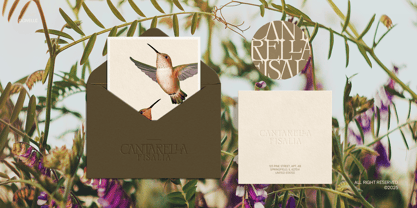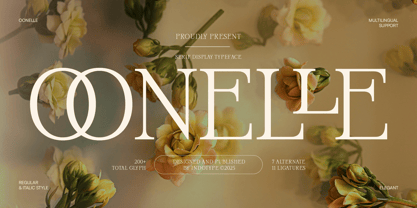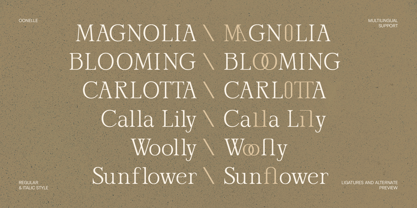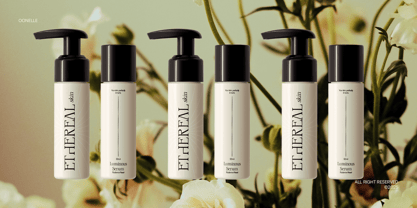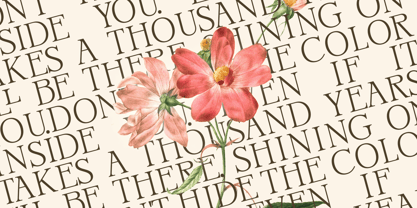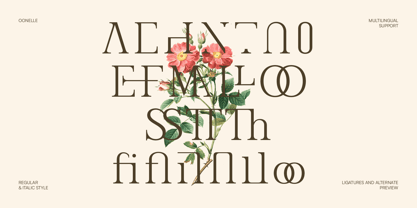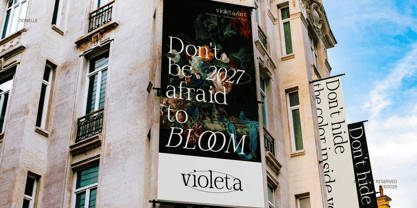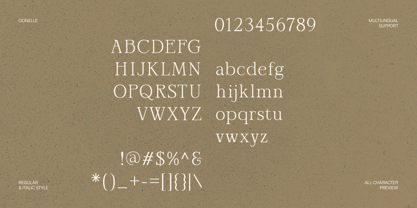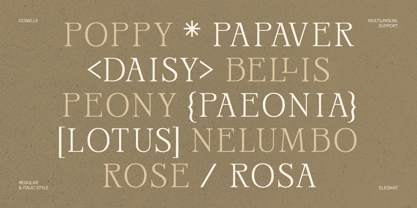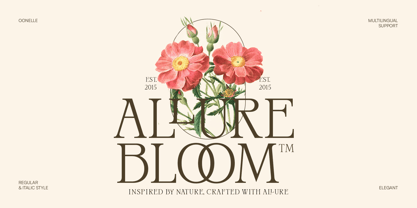
IT Oonelle
by Indotype
The IT Oonelle Font Family was designed by Dede Kurniawan and published by Indotype. IT Oonelle contains 2 styles and family package options. More about this family
Oonelle is an elegant serif display typeface crafted for refined visual storytelling. Its timeless letterforms balance graceful curves and crisp structure, exuding a sense of sophistication that feels both modern and classic. Designed with 7 alternates and 11 ligatures, Oonelle offers expressive versatility, allowing each word to flow beautifully across layouts. Featuring regular and italic styles with 200+ glyphs and full multilingual support, Oonelle is perfect for editorial design, branding, invitations, and luxury packaging. The overlapping “O” detail in its logo presentation captures its essence — unity, elegance, and artistic poise. Published by Indotype in 2025, Oonelle transforms typography into a refined visual statement — ideal for those seeking a high-fashion, magazine-style, and timeless serif aesthetic that radiates confidence and beauty.